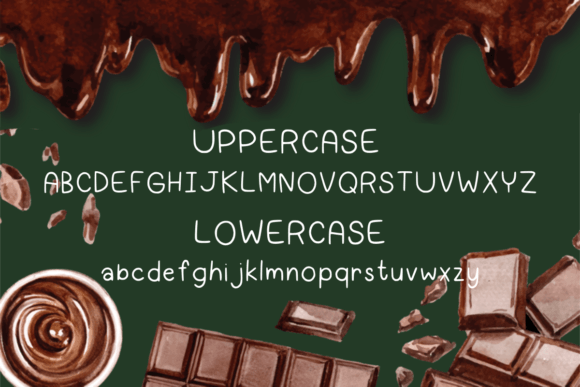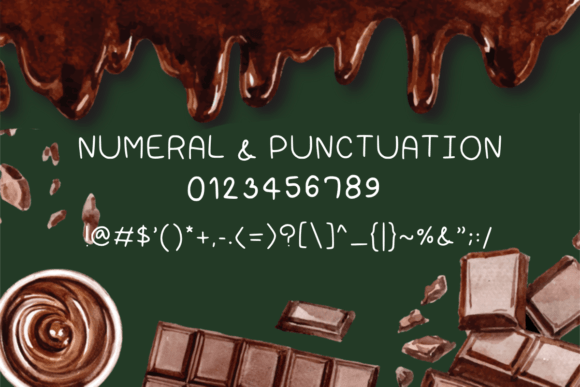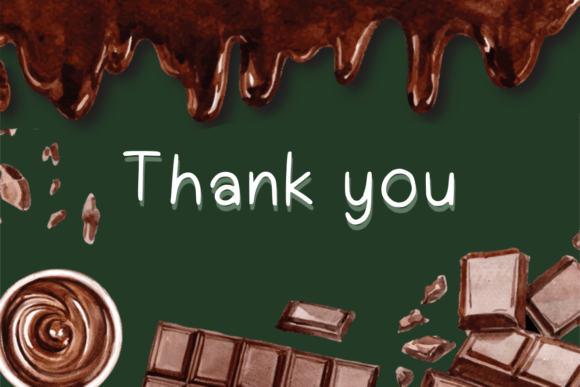
Cocoa Font: The Perfect Choice for Fun and Creative Projects
Cocoa is a delightful and quirky handwritten font that embodies playfulness and authenticity. Its unique charm makes it an ideal choice for any children’s activity or school project. In this article, we’ll explore the features and benefits of the Cocoa font, and why it’s a must-have for designers and crafters looking to add a touch of whimsy to their work.
What is Cocoa Font?
Cocoa is a handcrafted font that exudes a sense of fun and playfulness. Its irregularities and imperfections give it a charming, homemade feel that’s perfect for projects that require a personal touch. The font’s quirky nature makes it stand out from more traditional fonts, adding a dash of personality to any design.
Key Features of Cocoa Font
- Handwritten style: Cocoa’s handwritten style gives it a unique, personal feel that’s perfect for creating engaging and interactive designs.
- Playful and authentic: The font’s playfulness and authenticity make it an excellent choice for projects that require a touch of whimsy and creativity.
- Perfect for children: Cocoa’s child-friendly design makes it an ideal choice for children’s activities, school projects, and educational materials.
- Easy to read: Despite its quirky nature, Cocoa is surprisingly easy to read, making it a great choice for body text and headings.
Benefits of Using Cocoa Font
So, why choose Cocoa font for your next project? Here are just a few benefits of using this delightful font:
- Adds personality to your design: Cocoa’s unique style adds a touch of personality to any design, making it stand out from more traditional fonts.
- Creates a child-friendly atmosphere: The font’s playful nature creates a child-friendly atmosphere that’s perfect for educational materials, children’s activities, and school projects.
- Easy to pair with other fonts: Cocoa pairs well with a variety of fonts, making it easy to create visually appealing combinations.
- Perfect for digital and print designs: Whether you’re designing for digital or print, Cocoa font is a versatile choice that works well across various mediums.
How to Use Cocoa Font in Your Designs
Ready to add Cocoa font to your design arsenal? Here are some tips on how to use it effectively:
- Pair with bold fonts: Pair Cocoa with bold, sans-serif fonts to create a striking contrast that adds visual interest to your design.
- Use for headings and titles: Cocoa font is perfect for headings and titles, adding a touch of whimsy and personality to your design.
- Experiment with colors: Don’t be afraid to experiment with different colors and textures to add depth and interest to your design.
- Keep it simple: Don’t overcomplicate your design – keep it simple and let Cocoa font’s unique style shine through.
Cocoa Font for Crafters and Designers
Cocoa font is a treasure trove for crafters and designers looking to add a touch of personality to their work. Whether you’re creating:
- Children’s party invitations: Add a touch of whimsy to your party invitations with Cocoa font.
- School projects: Use Cocoa font to create engaging and interactive school projects that capture your students’ imagination.
- DIY crafts: Add a personal touch to your DIY crafts with Cocoa font, perfect for creating handmade cards, gift tags, and more.
- Digital products: Use Cocoa font to create visually appealing digital products, such as printables, planners, and educational resources.
| Author | Juggabee |
Cocoa font is a delightful and quirky handwritten font that’s perfect for adding a touch of playfulness and authenticity to your designs. Its child-friendly nature, ease of use, and versatility make it an excellent choice for designers and crafters looking to create engaging and interactive designs. Whether you’re working on a children’s activity, school project, or DIY craft, Cocoa font is sure to bring a smile to your face and a touch of personality to your work.